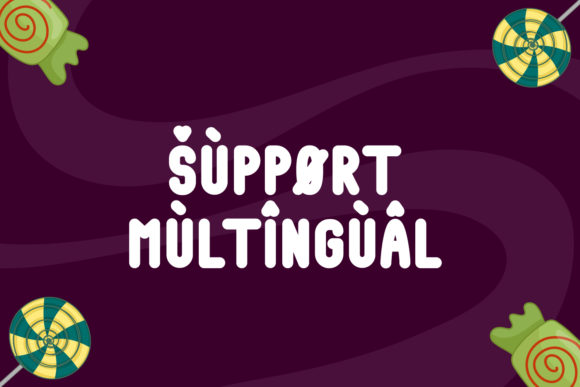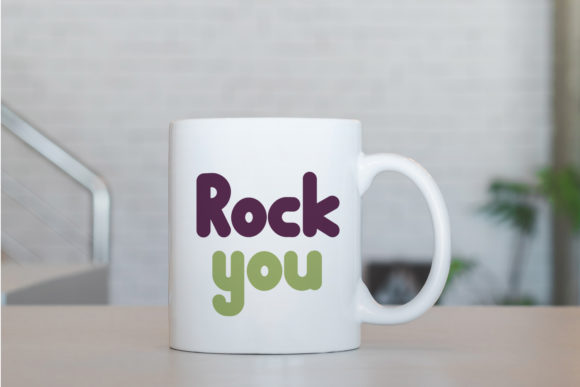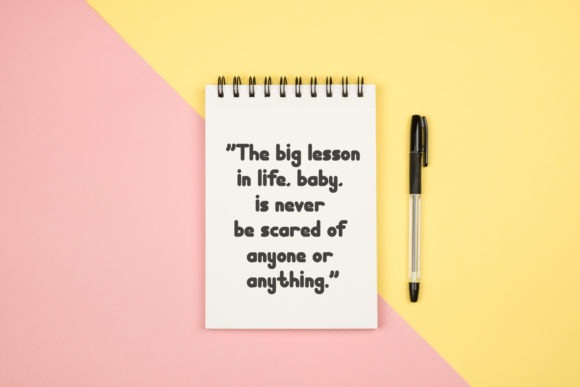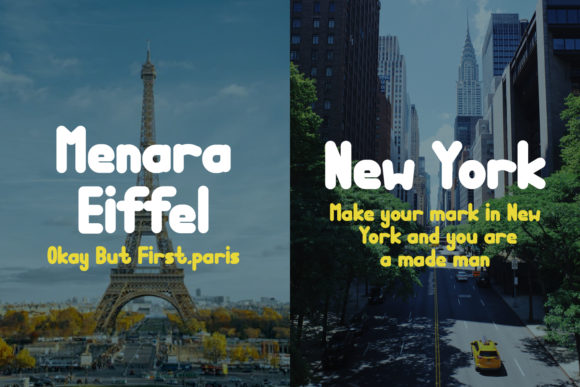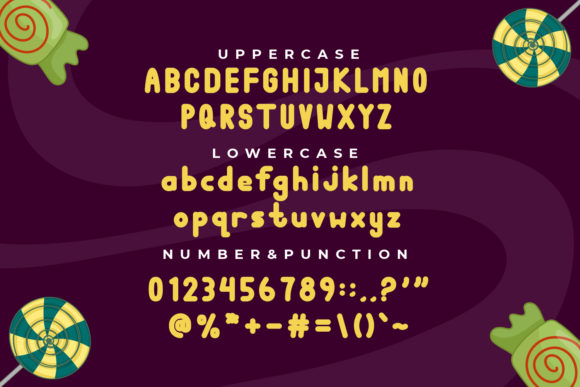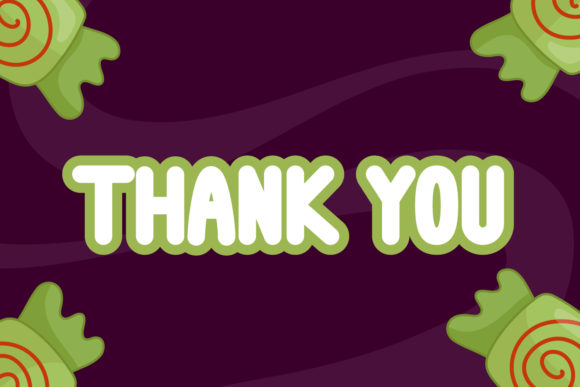
Candy Mood Font: The Sweetest Addition to Your Design Collection
Are you on the hunt for a font that adds a dash of whimsy and charm to your designs? Look no further than Candy Mood Font! This quirky and cute display font is the perfect addition to any creative project, bringing a casual and down-to-earth feel that’s sure to captivate your audience. In this article, we’ll dive into the world of Candy Mood Font, exploring its features, uses, and benefits for designers and crafters alike.
What is Candy Mood Font?
Candy Mood Font is a display font designed to bring a touch of sweetness to your designs. Its unique and playful style makes it perfect for a wide range of applications, from quotes and shirt designs to websites, branding, and children’s designs. The font’s casual charm and easy readability ensure that it can be used in various contexts, making it a versatile addition to your font collection.
Key Features of Candy Mood Font
- Quirky and Cute: Candy Mood Font boasts a quirky and cute style that’s sure to add a dash of personality to your designs.
- Down-to-Earth: The font’s casual charm makes it look very down to earth, perfect for designs that require a friendly and approachable feel.
- Easy to Read: Despite its playful style, Candy Mood Font remains easy to read, ensuring that your message is conveyed clearly and effectively.
- Versatile: This font is perfect for a wide range of applications, from digital designs to print materials.
Uses of Candy Mood Font
Candy Mood Font is perfect for various design projects, including:
- Quotes: Add a touch of whimsy to your inspirational quotes and sayings.
- Shirt Designs: Create eye-catching apparel with Candy Mood Font’s playful style.
- Websites: Use the font to add a friendly and approachable feel to your website’s design.
- Branding: Incorporate Candy Mood Font into your brand’s visual identity for a unique and memorable look.
- Children’s Designs: The font’s playful style makes it perfect for children’s books, games, and educational materials.
- Blogs: Add a dash of personality to your blog’s design with Candy Mood Font.
- Logos: Use the font to create a unique and memorable logo for your business or brand.
- Invitations: Add a touch of whimsy to your party invitations, wedding invites, and other special occasion designs.
Benefits of Using Candy Mood Font
So, why should you choose Candy Mood Font for your design projects? Here are just a few benefits:
- Unique Style: Candy Mood Font offers a unique and playful style that’s sure to set your designs apart.
- Versatility: The font’s versatility ensures that it can be used in various contexts, from digital designs to print materials.
- Easy to Read: Despite its playful style, Candy Mood Font remains easy to read, ensuring that your message is conveyed clearly and effectively.